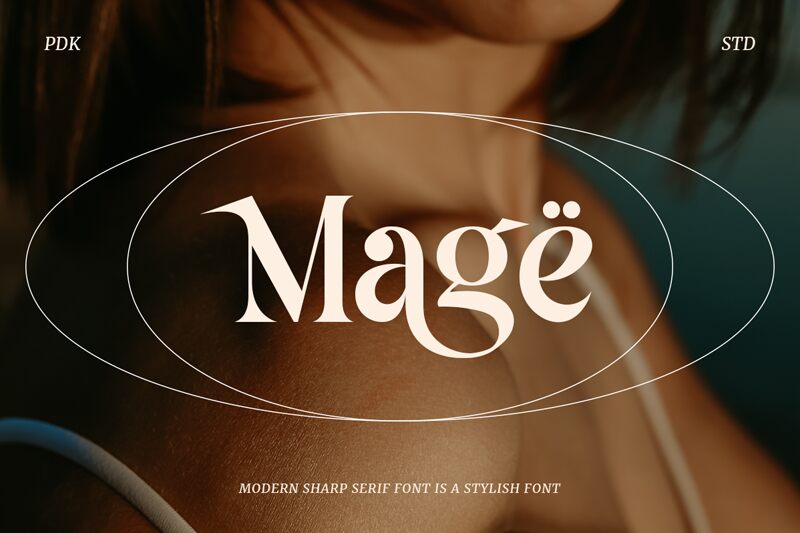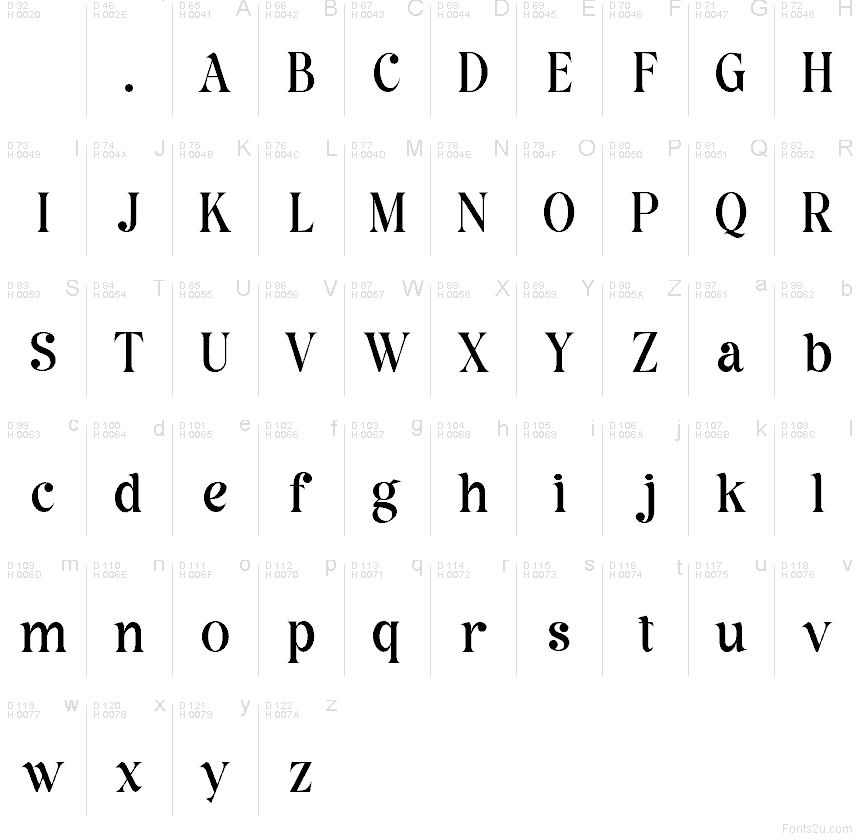
Mage Demo by Pandeka Studio is a free high-contrast serif with a fashion-editorial mood. The letters pair razor-thin strokes with swelling curves and sharp, tapered finishes, so the font feels poised, dramatic, and a little decadent rather than purely classical.
It suits magazine mastheads, boutique packaging, beauty branding, book covers, and film title cards, where those sleek curves can carry a short line with real presence. As a free font, it also works well for monograms or drop caps, because the contrast and oversized bowls give even a single letter a dressed-up, statement-making character.